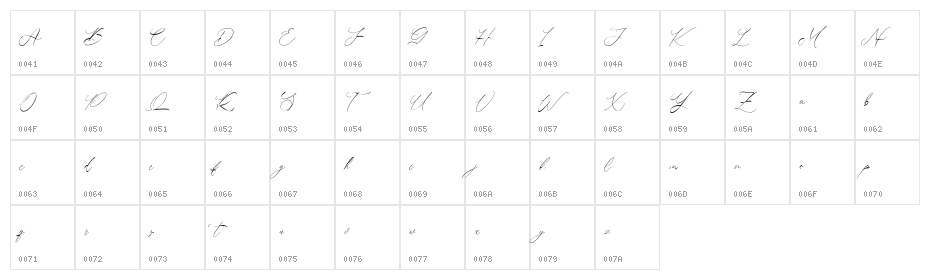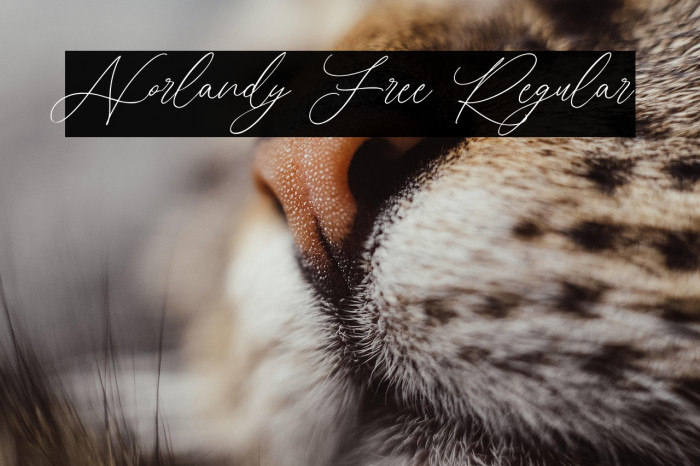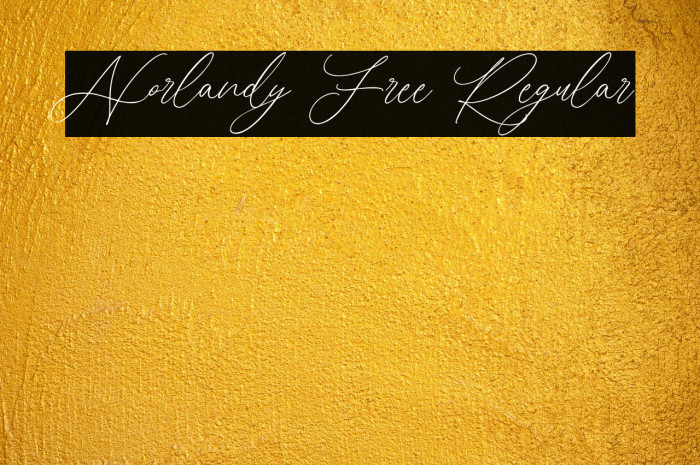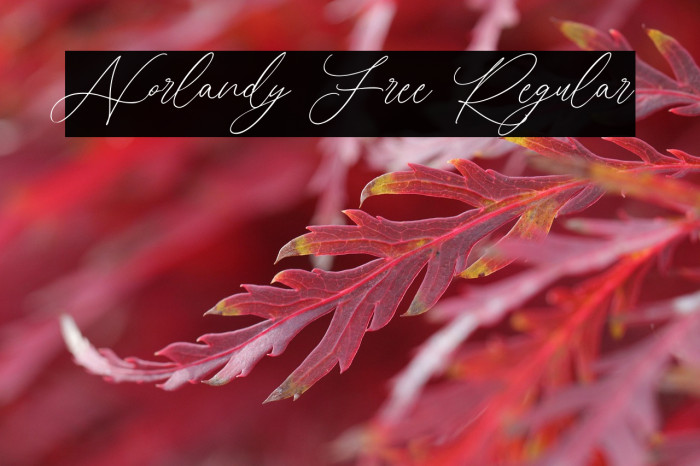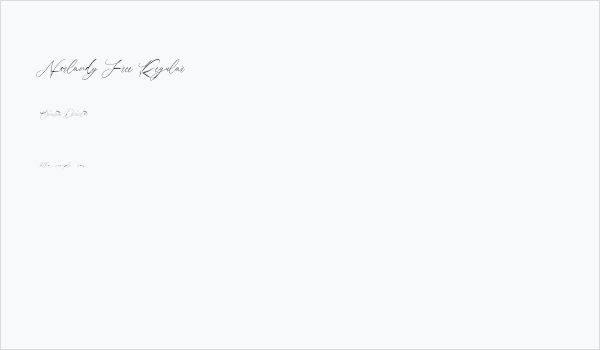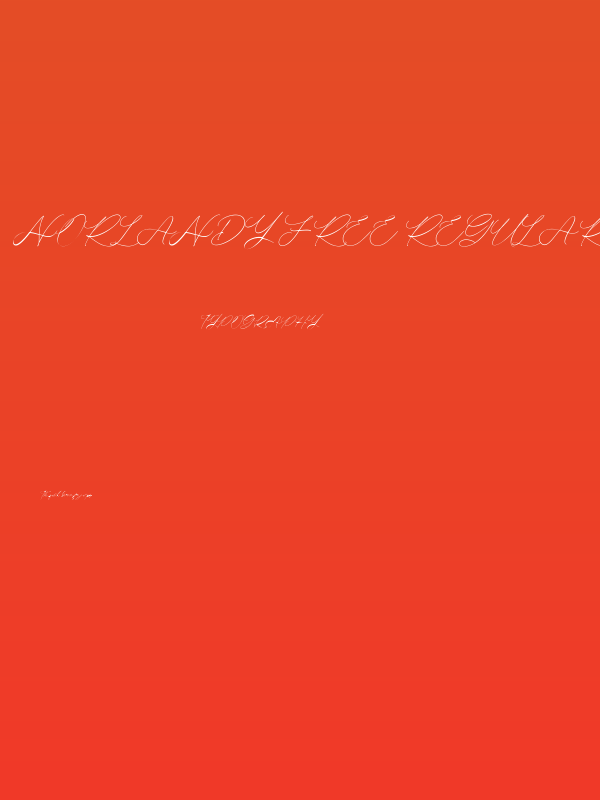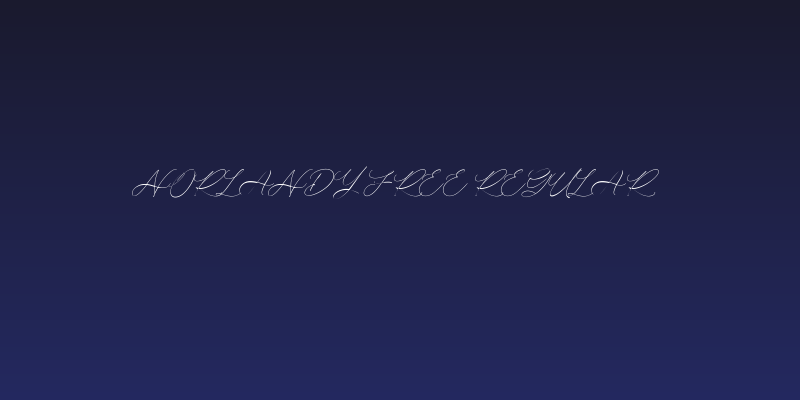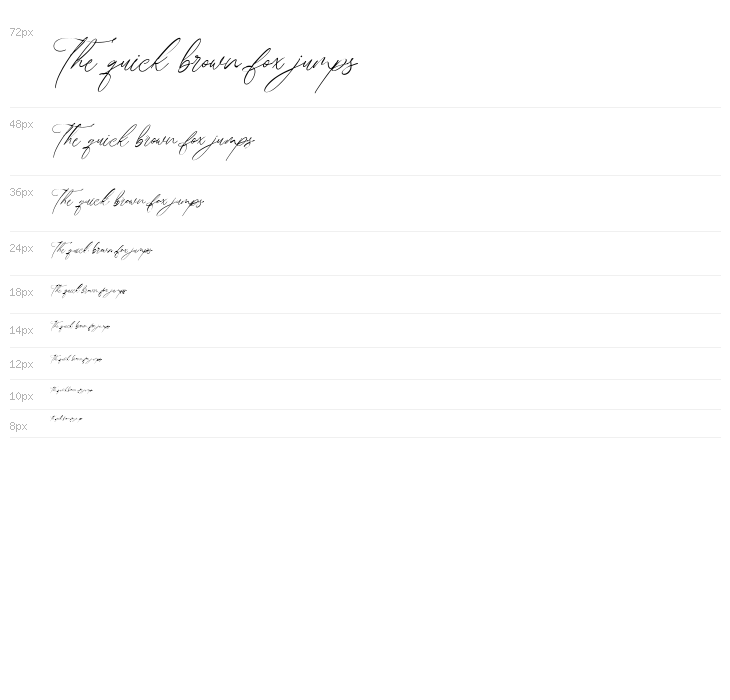
Norlandy Free Regular Font
Norlandy Free Regular Description
This font features an elegant, flowing script style with delicate, interconnected letters that mimic the fluidity of cursive handwriting. The characters are gracefully elongated, with smooth curves and loops that give it a sophisticated and artistic appearance. The uppercase letters are particularly ornate, with intricate swirls and flourishes that add a touch of luxury and refinement. The lowercase letters maintain a consistent style, complementing the uppercase with their own subtle embellishments. The overall design is airy and light, making it suitable for projects that require a touch of elegance and personal flair.
| Overall Style | Elegant, Artistic |
| Use Case | Logos, Invitations, Personal stationery |
| Proposed Projects | Ideal for wedding invitations, elegant branding, personal stationery, and artistic projects. |